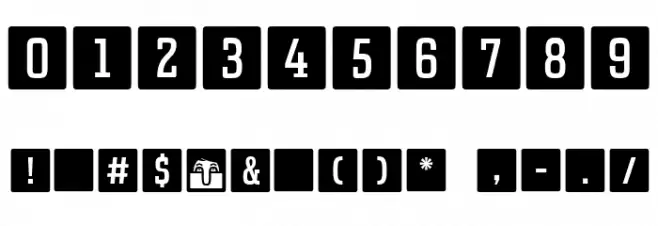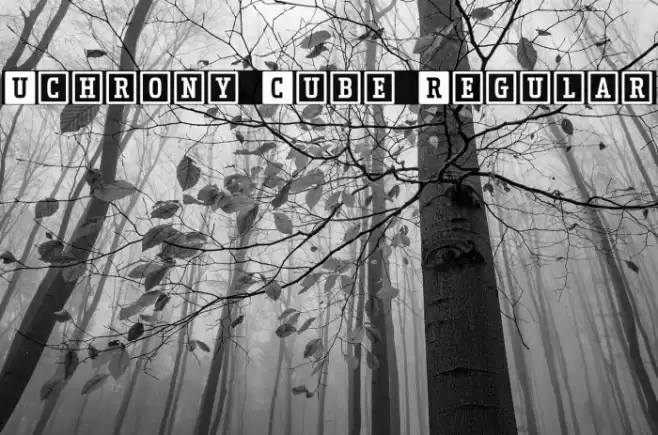
Uchrony Cube Regular Font
Uchrony is a condensed proportion slab serif typeface. The font family is made up of 3 styles, Roman, Small Caps & Italics, with 6 weights each (Extra Light, Light, Regular, Medium, Bold and Extra Bold).
| Projets proposés | Ideal for use in branding, posters, headlines, and any design project that requires a strong, modern typeface. |